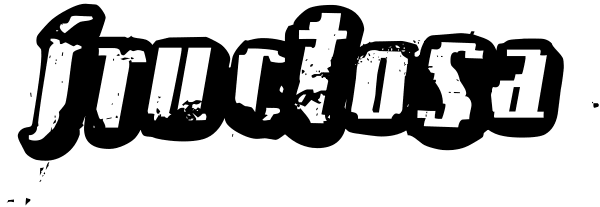
Fructosa
This unique type treatment was born after working in a mixture between a pixel based font and a retro logo. With lot of details it looks great a bigger sizes, but you can also apply it to write long sentences or even as body text! This font was...